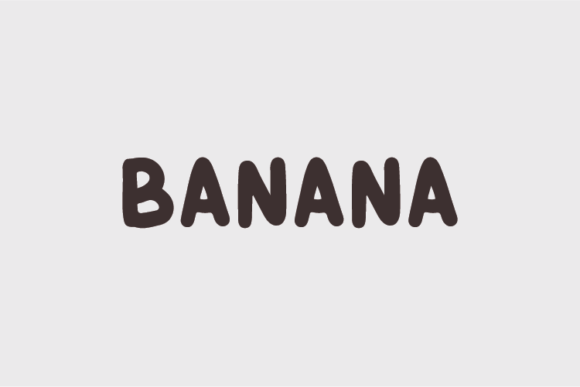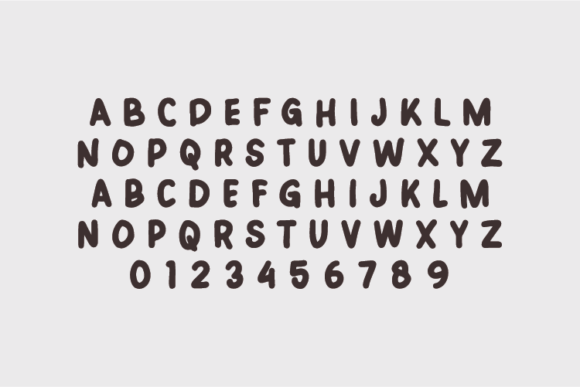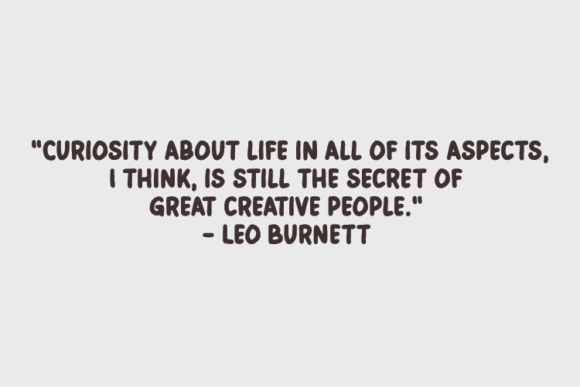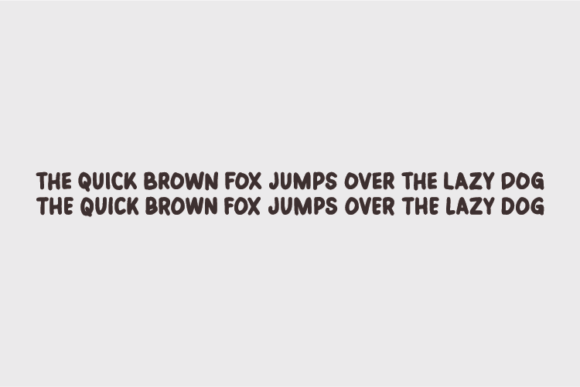
About Banana Font
Banana is a cute, natural and friendly handwritten font. No matter the topic, this font will be an incredible asset to your fonts’ library, as it has the potential to elevate any creation.